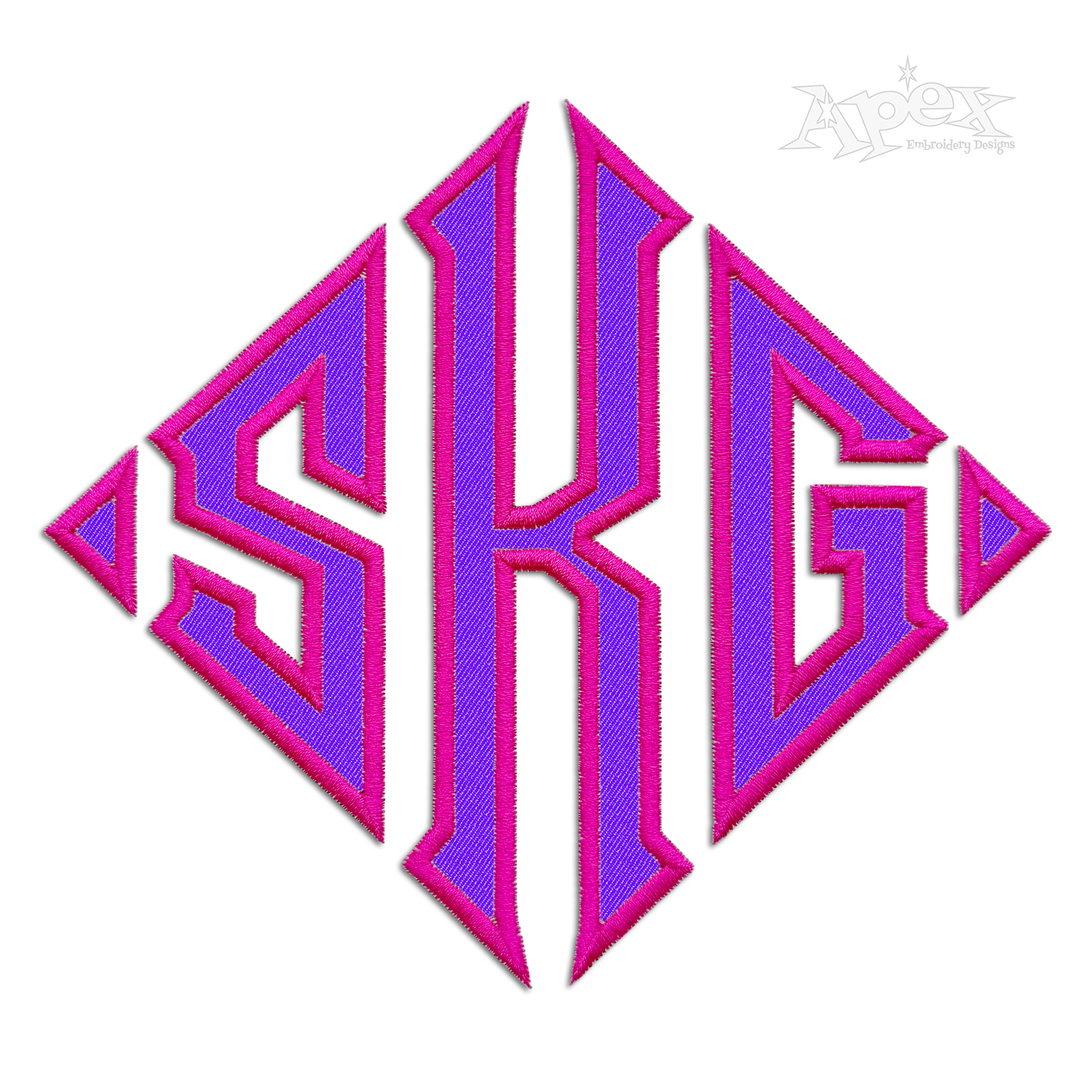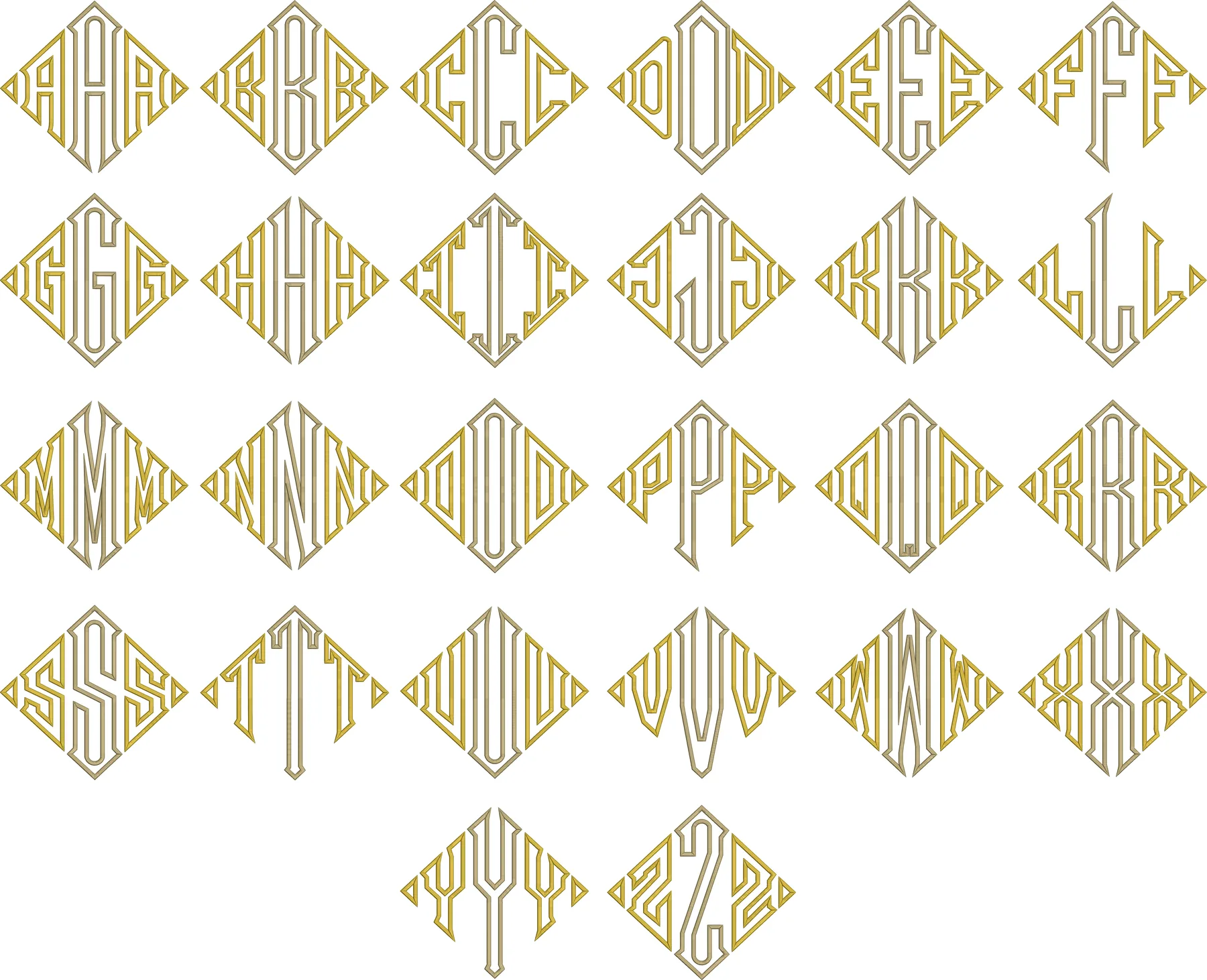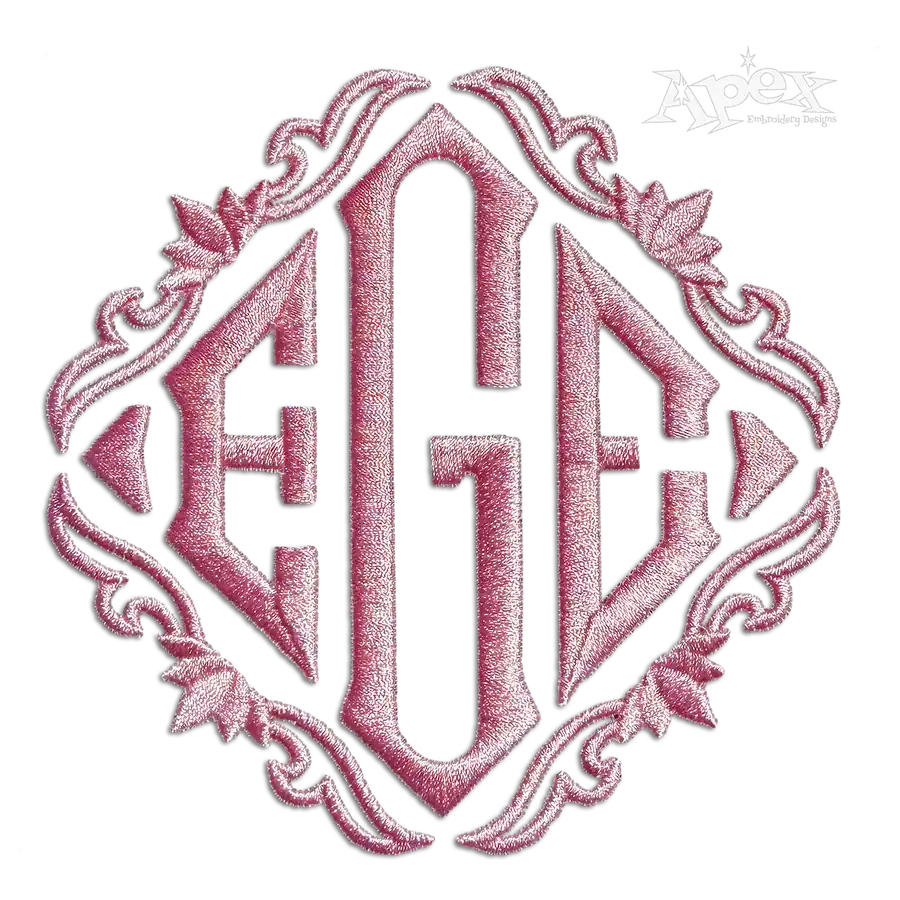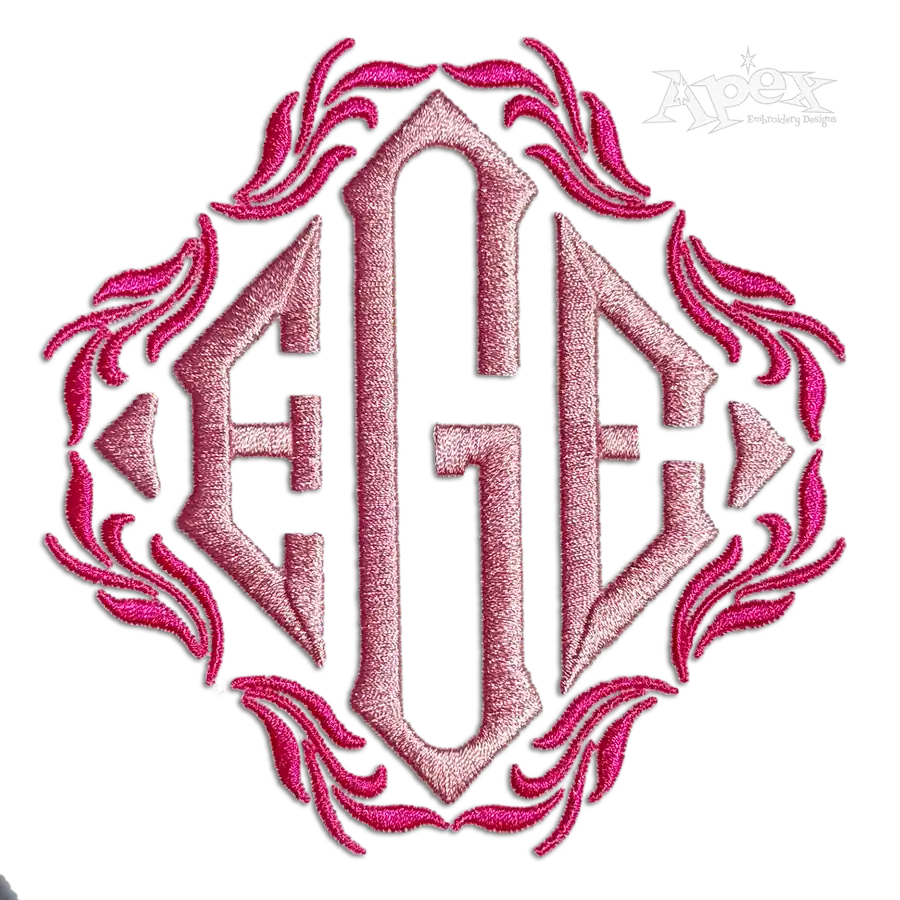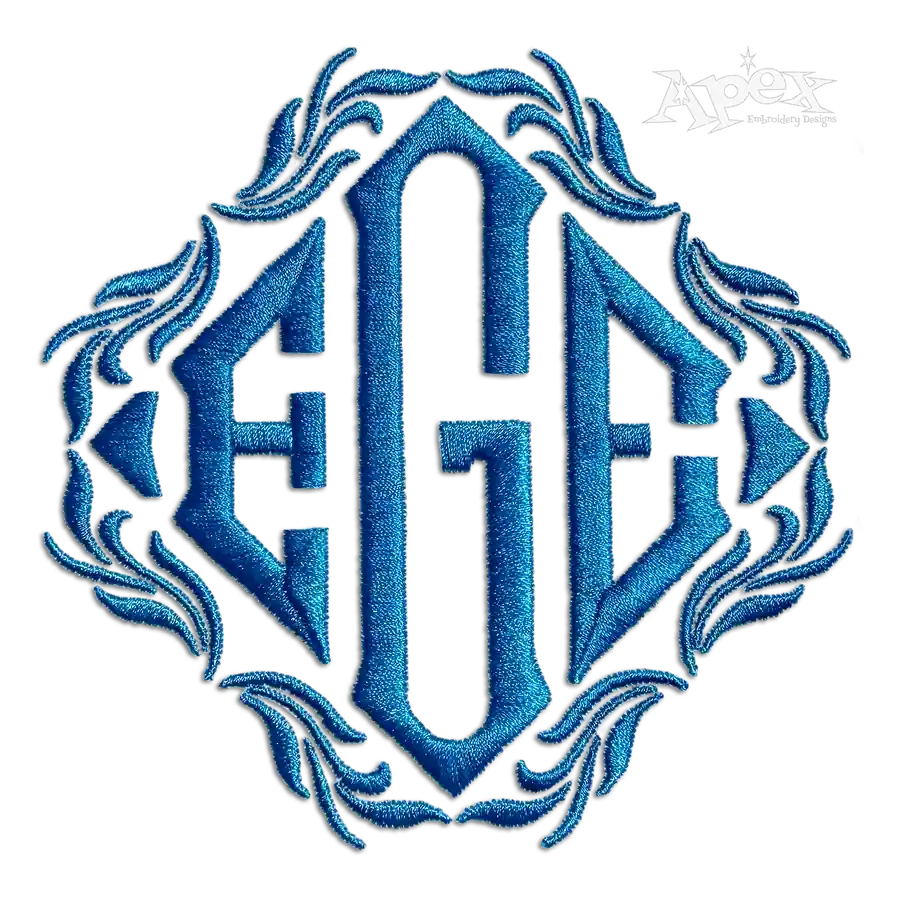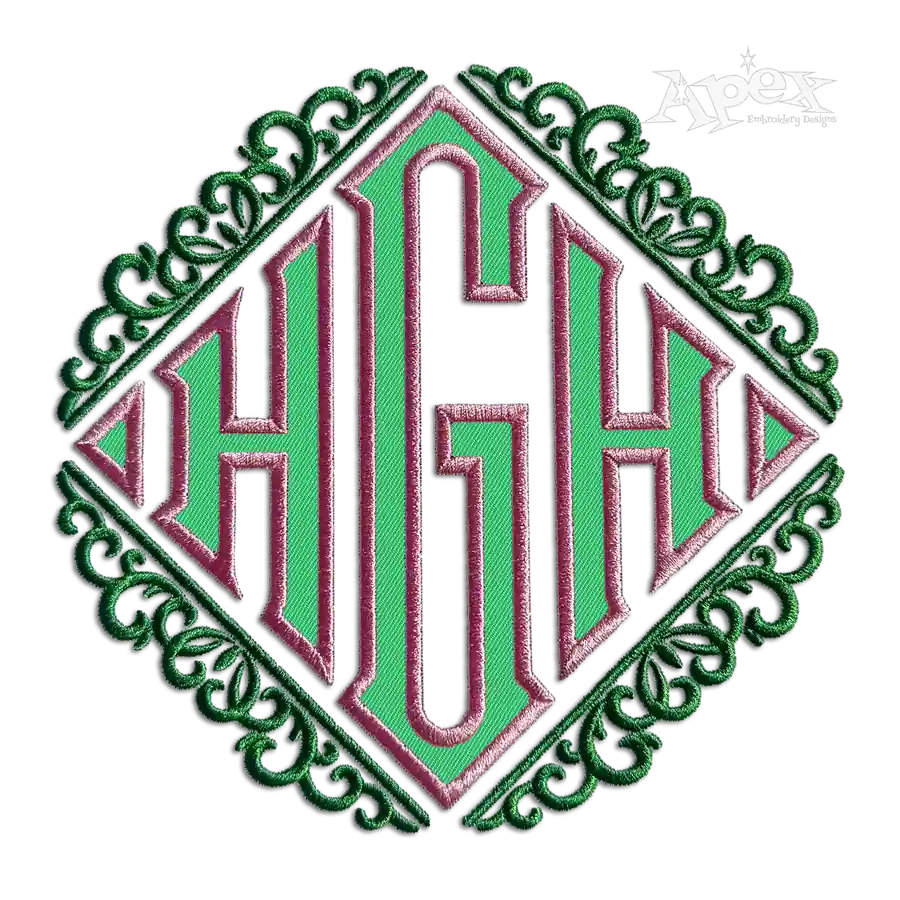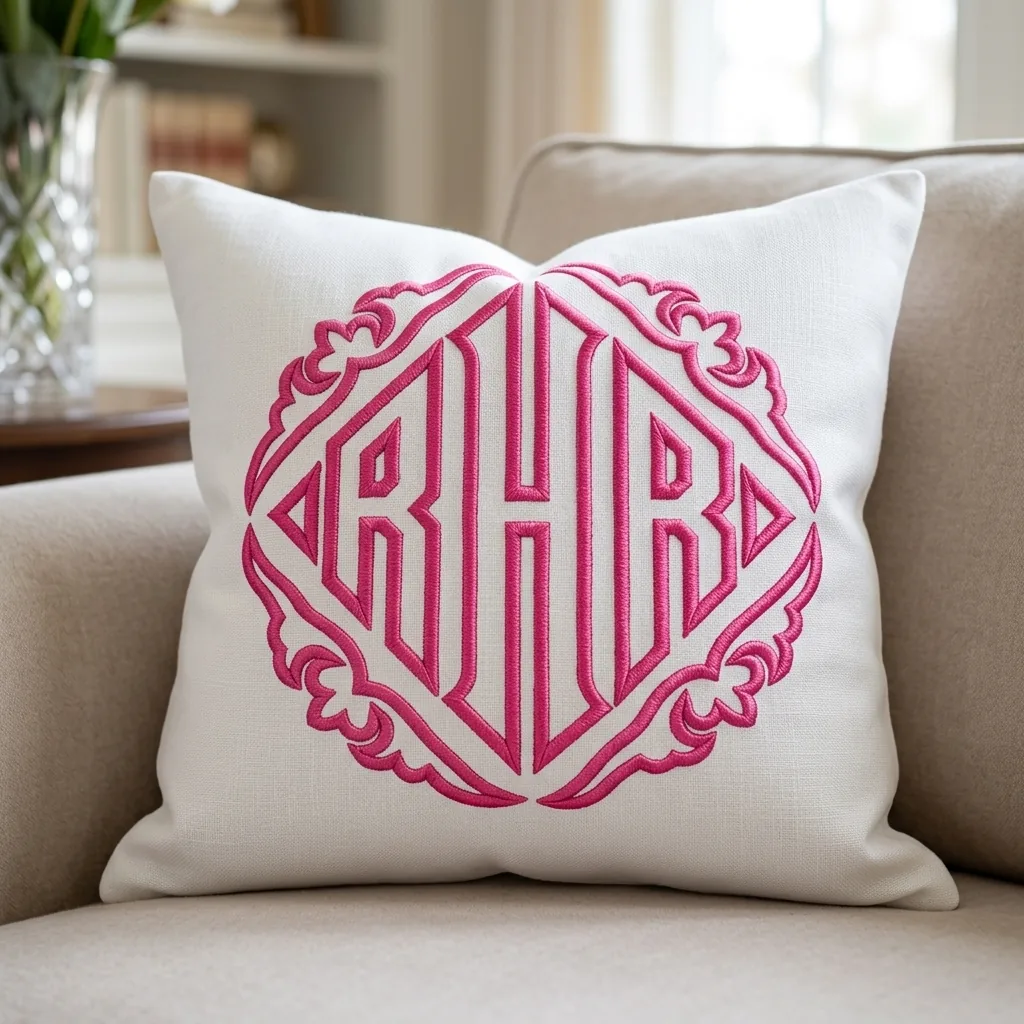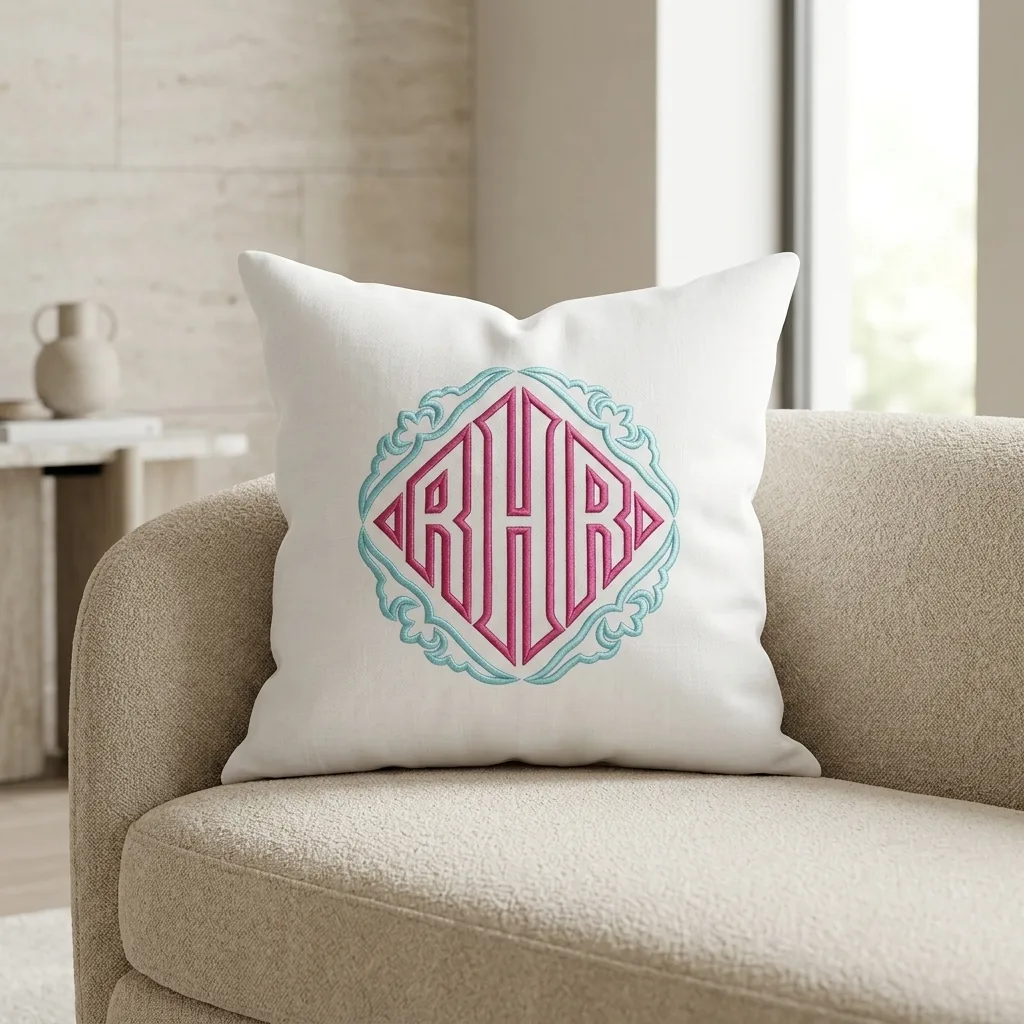
Pillow Diamond Tri Gothic Embroidery Font
Pillow Diamond Machine Embroidery Monogram Fonts Left, Right And Middle 3-Letters.
Beautiful Modern personalized gifts and home d?cor with this elegant Pillow Diamond Monogram Applique Embroidery Font Bundle. Featuring a classic eastern European square triangle frame with stylish applique design, this fancy machine embroidery monogram set is perfect for customizing pillows, linens, towels, baby gifts, tote bags, and more.
This Chic bold stain embroidery font collection includes complete size sets with uppercase monogram letters designed for creating stunning 3-letter monograms. Each font comes professionally digitized for smooth stitching and excellent embroidery results.
- Pillow Diamond Applique Square Triangle Monogram Font
- Perfect for 3-Letter Monograms
- Fancy Monogrammed Linens
- Custom Home D?cor Projects